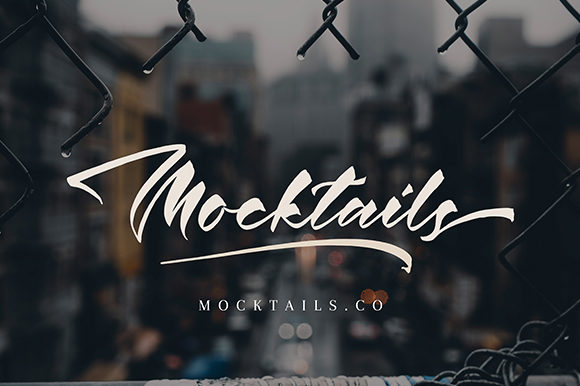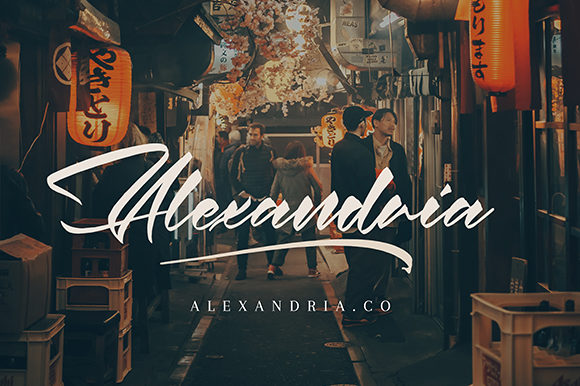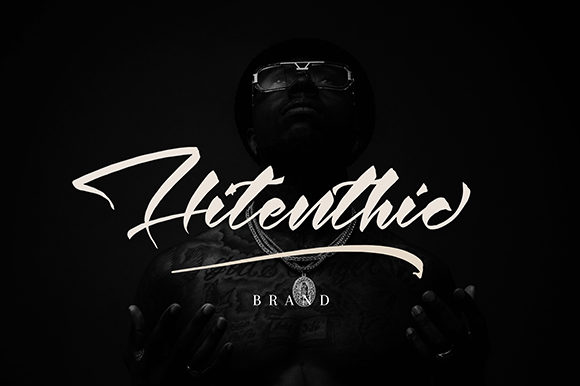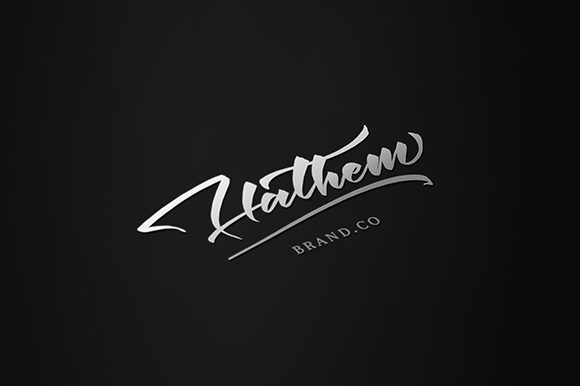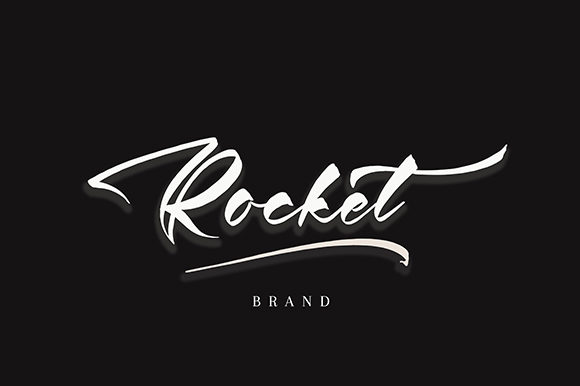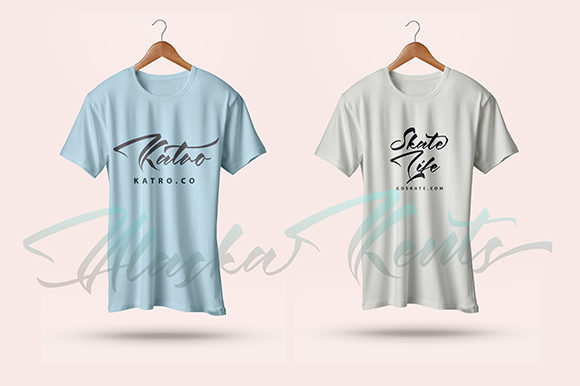
Discover the Elegance of Alaska Kents Font: A Perfect Handwritten Script for Designers and Crafters
Are you a designer or crafter looking for a unique and elegant handwritten script to elevate your design projects? Look no further than Alaska Kents Font! This beautiful font is perfect for a wide range of design applications, from wedding invitations and branding materials to digital graphics and craft projects. In this article, we’ll explore the features and benefits of Alaska Kents Font, and why it’s a must-have for any designer or crafter looking to add a touch of elegance to their work.
The Elegant Feel of Alaska Kents Font
Alaska Kents Font is a stunning handwritten script that exudes elegance and sophistication. Its flowing lines and delicate curves make it perfect for designs that require a touch of refinement and luxury. Whether you’re creating a wedding invitation, a logo, or a digital graphic, Alaska Kents Font is sure to impress. Its elegant feel makes it ideal for a wide range of design projects, from formal events to everyday branding materials.
Versatility of Alaska Kents Font
One of the best things about Alaska Kents Font is its versatility. This font can be used for a wide range of design projects, including:
- Digital graphics, such as social media graphics and blog headers
- Craft projects, such as handmade cards and scrapbooking
Whether you’re a professional designer or a crafty DIY enthusiast, Alaska Kents Font is a great choice for any project that requires a touch of elegance and sophistication.
Features of Alaska Kents Font
Alaska Kents Font has a number of features that make it a standout choice for designers and crafters. Some of its key features include:
- Beautiful, flowing lines and delicate curves
- Elegant and sophisticated feel
- Versatile and suitable for a wide range of design projects
Tips for Using Alaska Kents Font
Here are a few tips for using Alaska Kents Font in your design projects:
- Use it as a headline font to add a touch of elegance to your design
- Pair it with a simpler font for body text to create a beautiful contrast
- Use it to create beautiful, hand-drawn graphics and illustrations
In conclusion, Alaska Kents Font is a beautiful and elegant handwritten script that’s perfect for a wide range of design projects. Its flowing lines, delicate curves, and sophisticated feel make it a great choice for designers and crafters looking to add a touch of luxury and refinement to their work. Whether you’re creating a wedding invitation, a logo, or a digital graphic, Alaska Kents Font is sure to impress. So why not give it a try and see the difference it can make in your design projects?
Because of its elegant feel, Alaska Kents is the perfect handwritten script for a big variety of design projects! With its versatility, beautiful features, and ease of use, Alaska Kents Font is a must-have for any designer or crafter looking to elevate their design work.